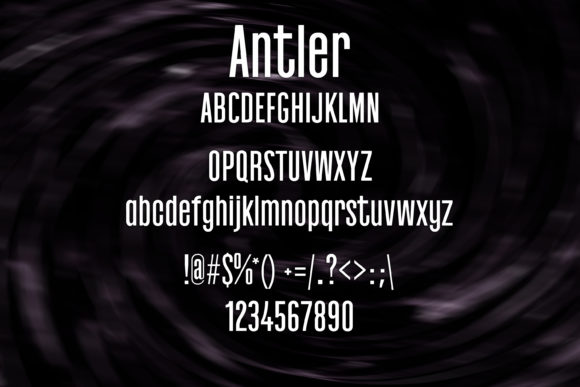
Introducing Antler Font: A Modern Twist on Traditional Sign Painting
In the world of typography, fonts play a crucial role in conveying messages, expressing emotions, and creating visual identities. For designers and crafters, finding the perfect font can be a daunting task. However, if you’re looking for a stunning sans serif font that combines traditional sign painting with a modern twist, look no further than Antler Font.
What is Antler Font?
Antler Font is a clean and minimal sans serif font that draws inspiration from traditional sign painting. With its modern twist, this font is perfect for designers and crafters who want to add a touch of elegance and sophistication to their projects. Whether you’re working on a logo, branding, packaging, or website design, Antler Font is an excellent choice.
Key Features of Antler Font
• Clean and Minimal Design: Antler Font boasts a clean and minimal design that makes it perfect for modern designs. Its simplicity ensures that your message is conveyed clearly and effectively.
• Traditional Sign Painting Inspiration: The font’s inspiration from traditional sign painting gives it a unique and distinctive look. The subtle nods to traditional sign painting techniques add character and personality to the font.
• Modern Twist: Antler Font’s modern twist sets it apart from traditional fonts. Its contemporary feel makes it ideal for designers and crafters who want to create modern and stylish designs.
• Versatile: Antler Font is a versatile font that can be used for a wide range of projects, from logos and branding to packaging and website design.
Benefits of Using Antler Font
• Enhance Your Brand’s Visual Identity: Antler Font can help you create a unique and memorable visual identity for your brand. Its clean and minimal design ensures that your brand stands out from the crowd.
• Improve Readability: The font’s clean and simple design makes it easy to read, even at small sizes. This ensures that your message is conveyed clearly and effectively.
• Increase Versatility: Antler Font’s versatility means that you can use it for a wide range of projects, from print materials to digital designs.
In conclusion, Antler Font is a stunning sans serif font that combines traditional sign painting with a modern twist. Its clean and minimal design makes it perfect for modern designs, while its versatility ensures that it can be used for a wide range of projects. Whether you’re a designer, crafter, or small business owner, Antler Font is an excellent choice for anyone looking to add a touch of elegance and sophistication to their projects.